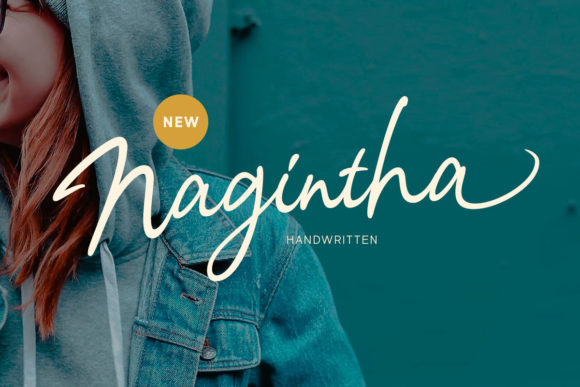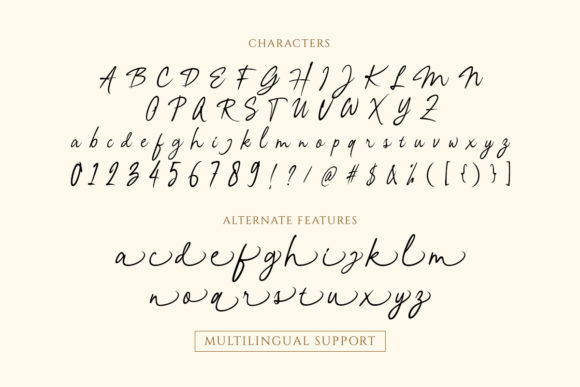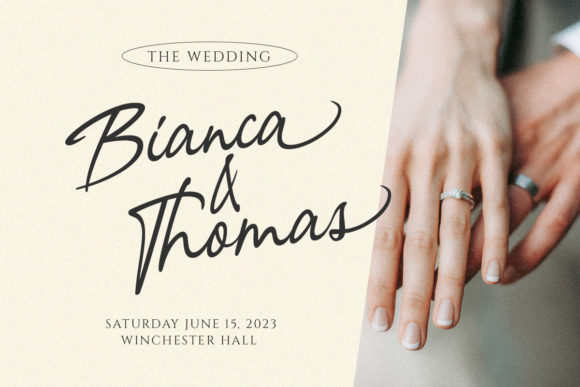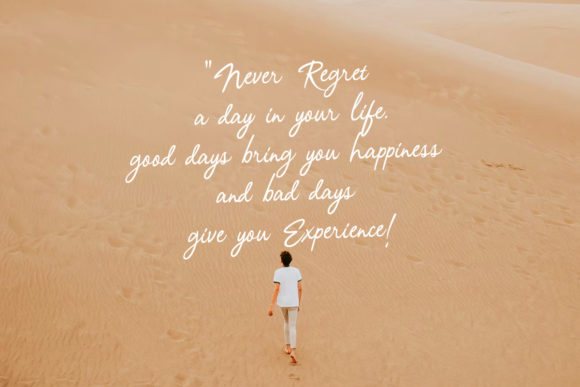
About Nagintha Font
Nagintha is a vintage styled handwritten script with natural look and feel. This type of font was perfectly made to be applied on logos, and other various formal forms such as invitations, labels, logos, magazines, books, greeting or for any type of advertising purpose.